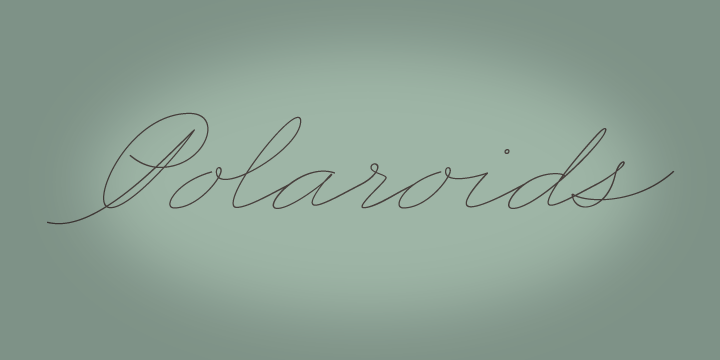
Business Penmanship, the state of the art typeface is certainly an elegy to the business handwriting emerging right from the era when penmanship was a highly-valued and inseparable part of business education and practice.The eye catching typefaceis a single feature-rich font that includes more than 1100 characters, alternates, covering ligatures, a large set of beginning and ending extensions, and a broad range of Latin-based languages, including Turkish and the Central and Eastern Europe languages.
This is a classic example of technological advanced typography that has maintained its traditional feel.